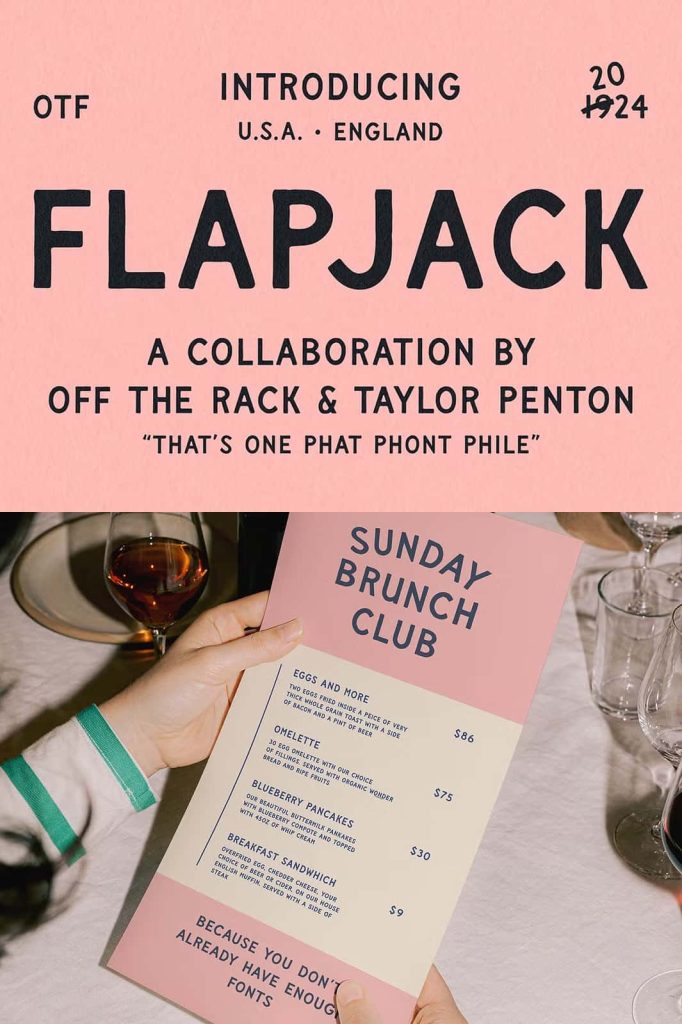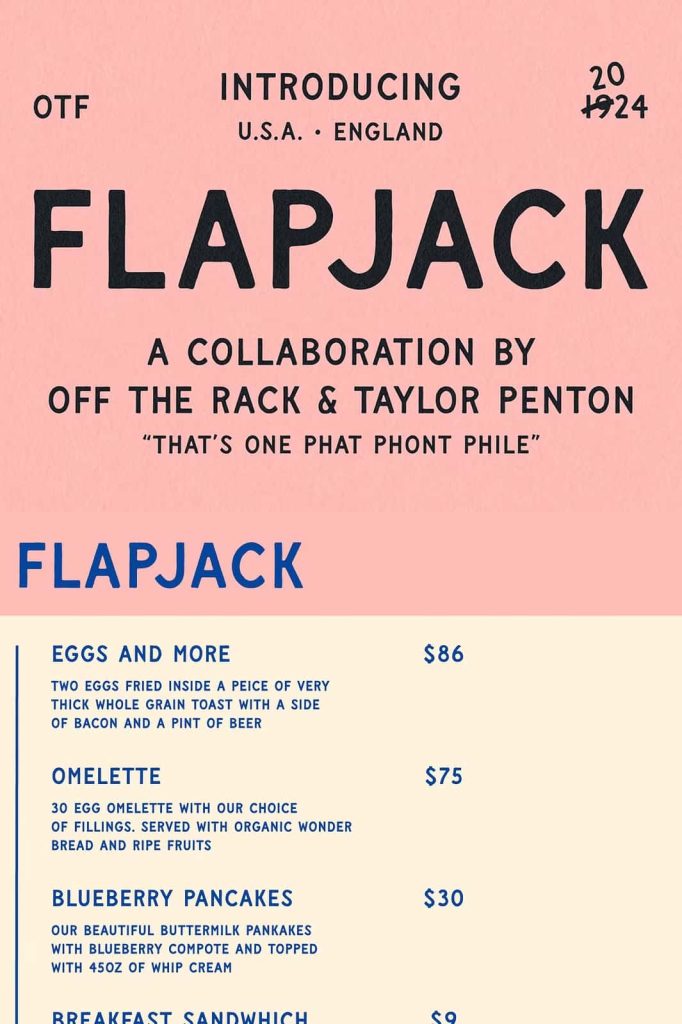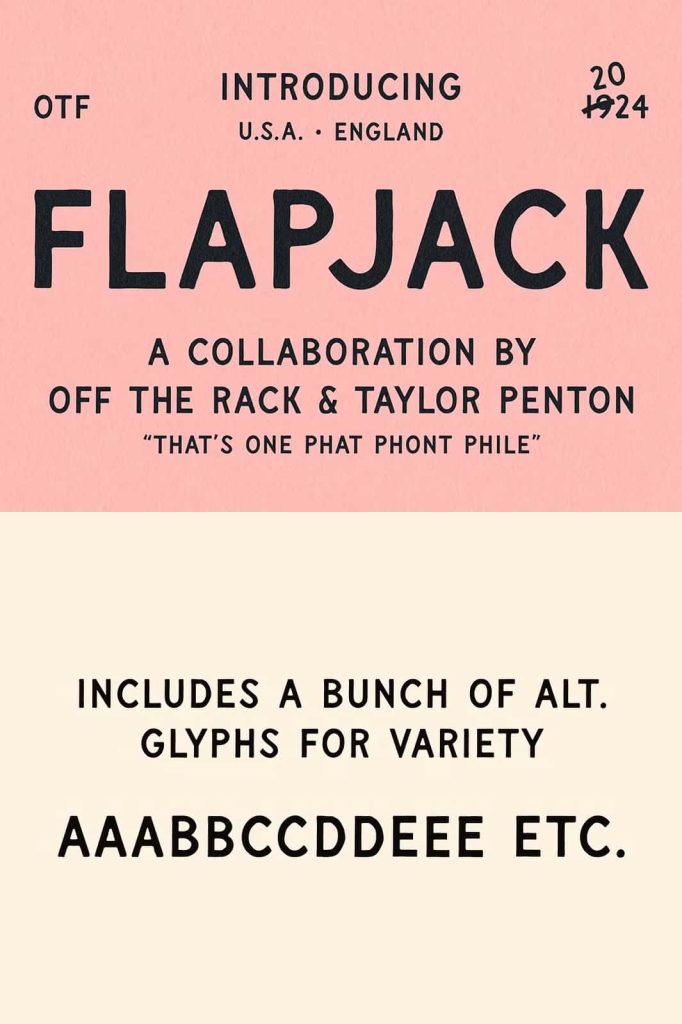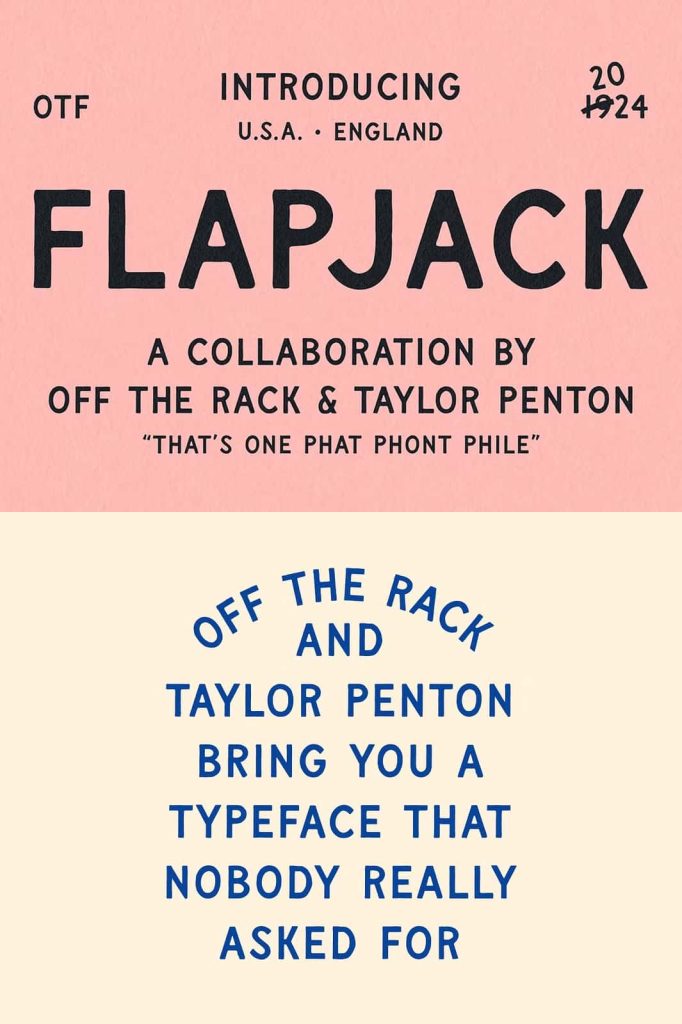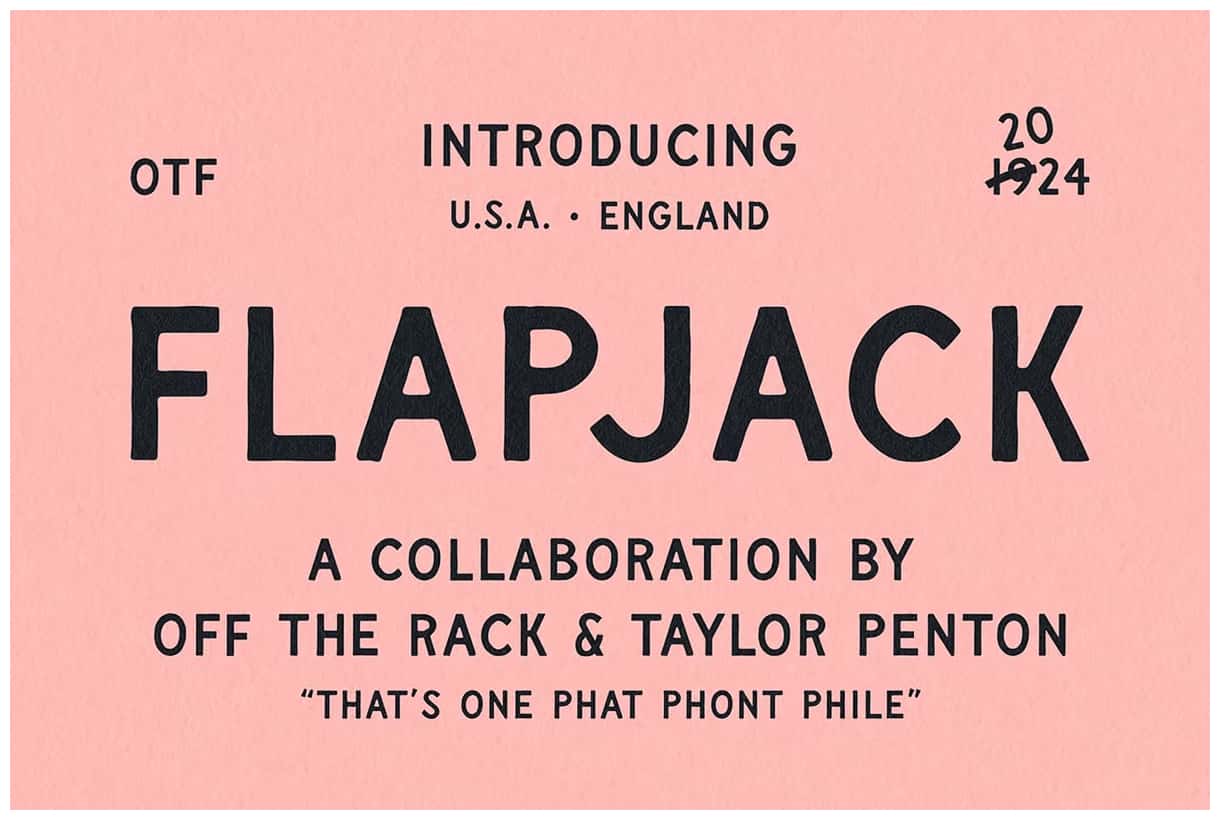
Flapjack: A Vintage Hand-Drawn Font Inspired by Classic Sign Painting
Flapjack brings the bold spirit of early 20th century signage into modern typography. This vintage-inspired hand-drawn font captures the raw energy and craftsmanship of traditional sign painters who shaped visual culture long before digital tools existed. Designers who want to create authentic, character-driven work will find Flapjack a powerful and expressive choice.
Instead of relying on clean, mechanical precision, Flapjack celebrates the imperfections and individuality of hand-rendered lettering. Each character reflects the care and intention of being drawn by hand, then refined into a flexible font that designers can use across a wide range of projects. This approach gives Flapjack a unique voice that feels both nostalgic and highly adaptable.
Inspired by Early 20th Century Signage
Flapjack draws its influence from old shop signs and painted billboards that once dominated streets and marketplaces. These signs relied on bold lettering and strong visual impact to capture attention quickly. Flapjack carries that same purpose into the present, allowing designers to create work that feels immediate and engaging.
The typeface reflects the craftsmanship of traditional sign writers who painted each letter with precision and personality. By referencing this era, Flapjack connects modern design with a rich visual history, making it ideal for projects that aim to evoke heritage and authenticity.
Key Features of Flapjack Font
Hand-Drawn Letterforms
Flapjack features letterforms that originate from hand-drawn sketches. This process introduces natural variations in shape and spacing, giving the font a lively and organic feel. These details help designs stand out by adding depth and individuality.
Bold Vintage Character
The font emphasizes strong, confident shapes that reflect the style of classic signage. Its bold presence ensures that text remains visible and impactful, even from a distance. Designers can use this quality to create eye-catching headlines and focal points.
Crafted and Refined for Modern Use
Although Flapjack begins as a hand-drawn design, it undergoes careful refinement to ensure usability. Each letter is adjusted and structured to work seamlessly in digital formats, allowing designers to “use and adapt” the font without losing its original charm.
Versatile Applications for Creative Projects
Flapjack adapts easily to a wide range of design contexts. Its distinctive style makes it especially effective in projects that require personality and visual impact. Designers can use it for:
- Branding and logo design with a vintage aesthetic
- Posters and advertising inspired by retro themes
- Packaging for artisanal or handcrafted products
- Apparel graphics and merchandise design
- Signage and display typography
Because of its bold and decorative nature, Flapjack works best as a display font. Designers should use it for titles, headlines, and short text while pairing it with simpler fonts for longer content.
Capturing the Spirit of Handmade Craft
Flapjack allows designers to reconnect with the artistry of traditional craftsmanship. Its hand-drawn origins create a sense of authenticity that resonates with audiences seeking originality. This quality makes it particularly valuable in branding and creative industries where individuality plays a key role.
The font also encourages experimentation. Designers can combine it with textures, vintage color palettes, and layered compositions to enhance its visual impact. This flexibility ensures that Flapjack remains relevant across both retro-inspired and contemporary designs.
Why Choose Flapjack for Your Design Projects
Flapjack offers a unique combination of history, artistry, and functionality. It allows designers to create bold and memorable visuals while maintaining a connection to traditional design practices. Its handcrafted character sets it apart from generic typefaces, giving every project a distinctive identity.
By choosing Flapjack, designers gain a tool that enhances creativity and storytelling. It transforms simple text into a visual statement that captures attention and communicates personality.
Conclusion
Flapjack is more than just a vintage hand-drawn font—it is a tribute to the art of sign painting and the enduring appeal of handcrafted design. With its bold letterforms, organic details, and refined usability, it provides a powerful solution for expressive typography.
Designers who use Flapjack can create work that feels authentic, engaging, and full of character. It stands as a versatile and timeless choice for projects that demand both visual impact and creative depth.